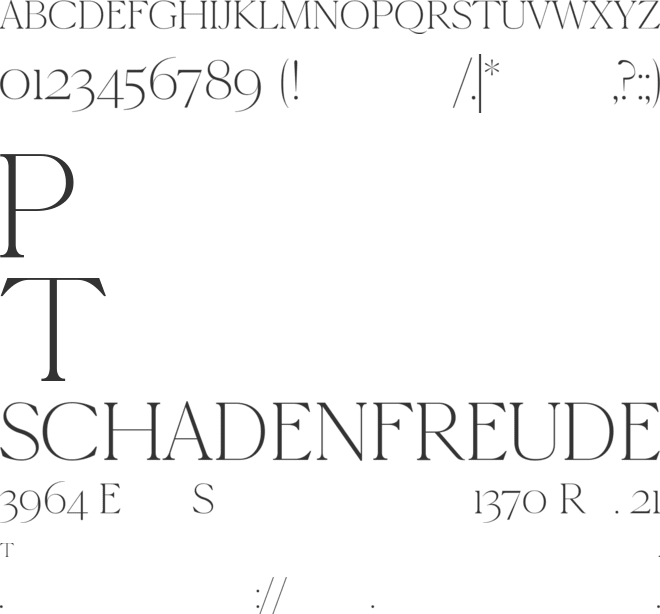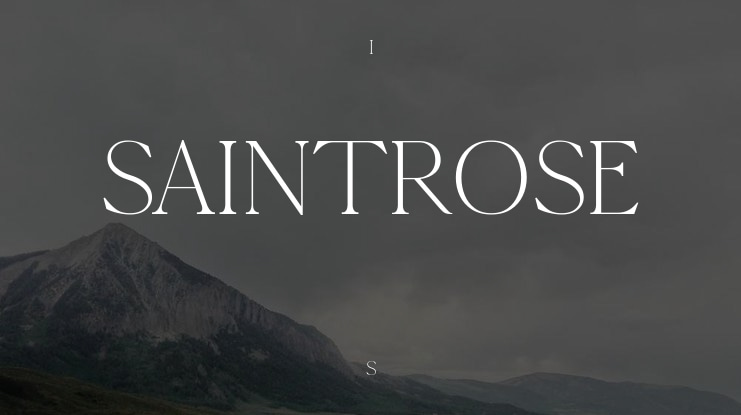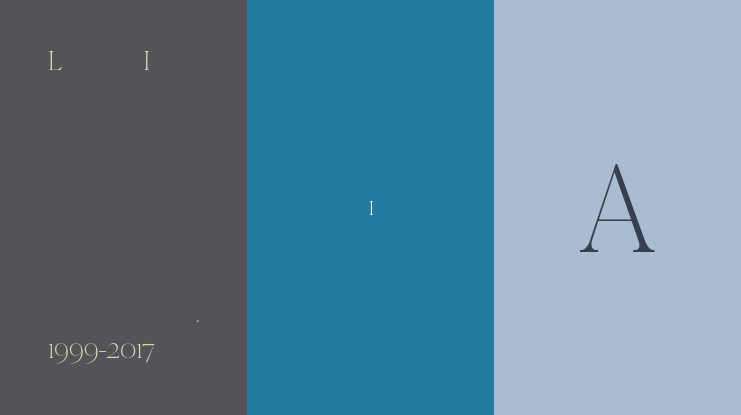
SAINTROSE Font Family
🎨 Font Name: Saintrose by Minimalist Art Studio
🎨 Font Description: Saintrose is a refined ligature serif with romantic curves, multilingual support, and elegant alternates for editorial and branding finesse.
βœ” Complete Latin set + multilingual diacritics
βœ” Alternates, stylistic sets & ligatures
βœ” Numbers, small caps, and extended punctuation
βœ” Bonus italics and family styles